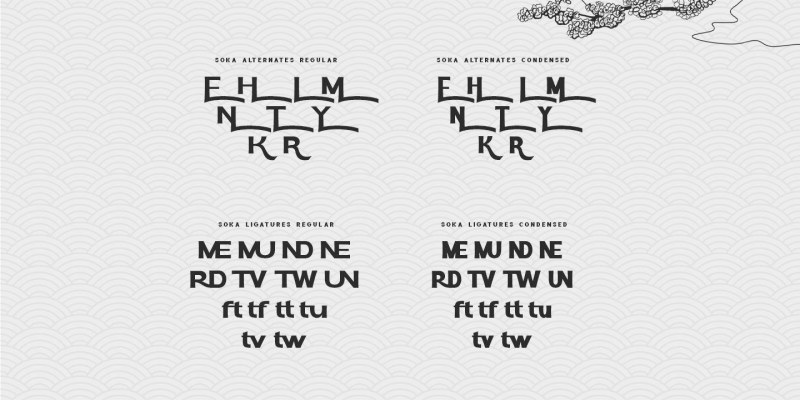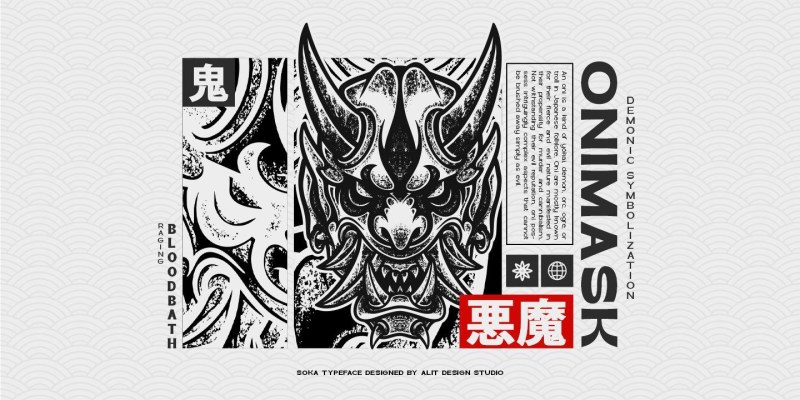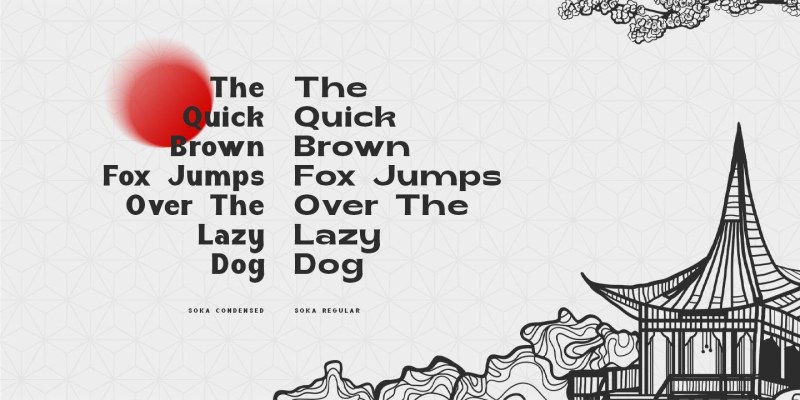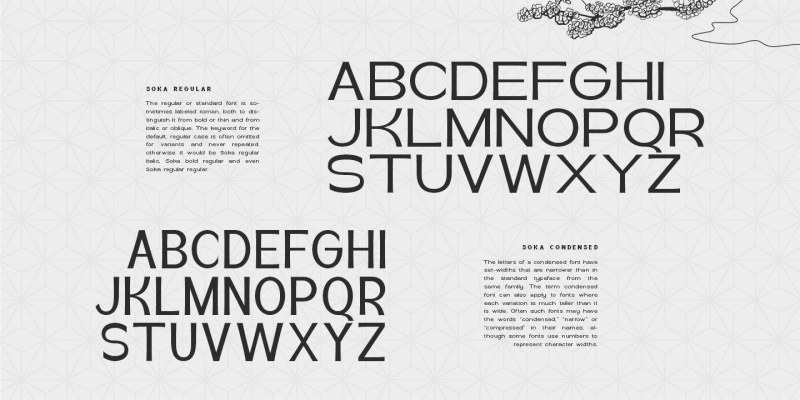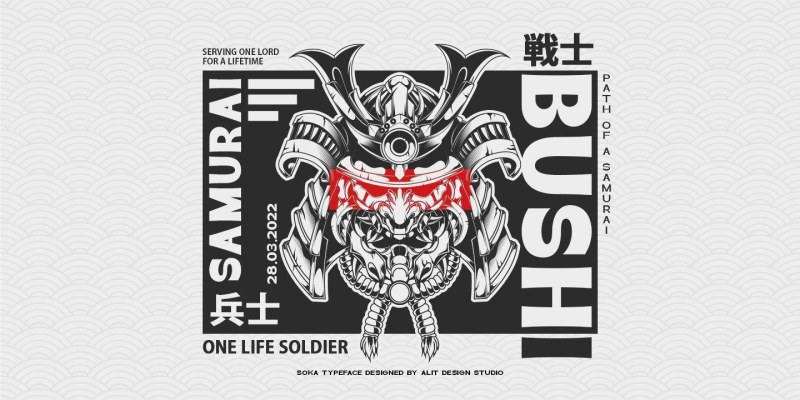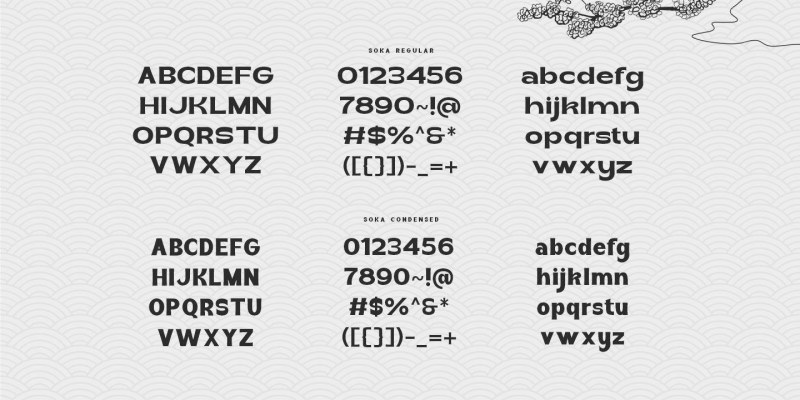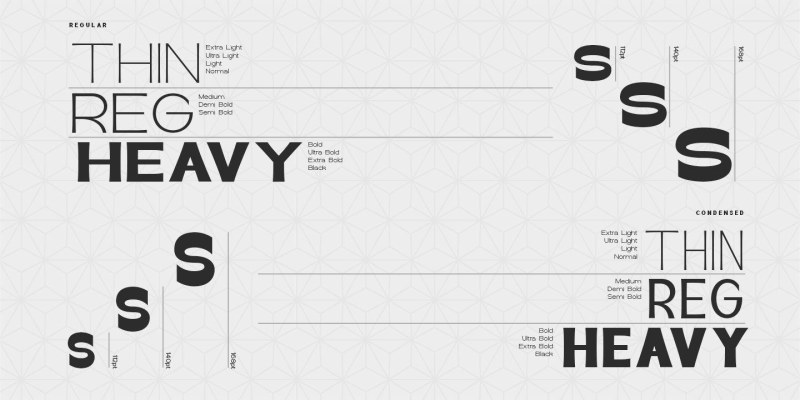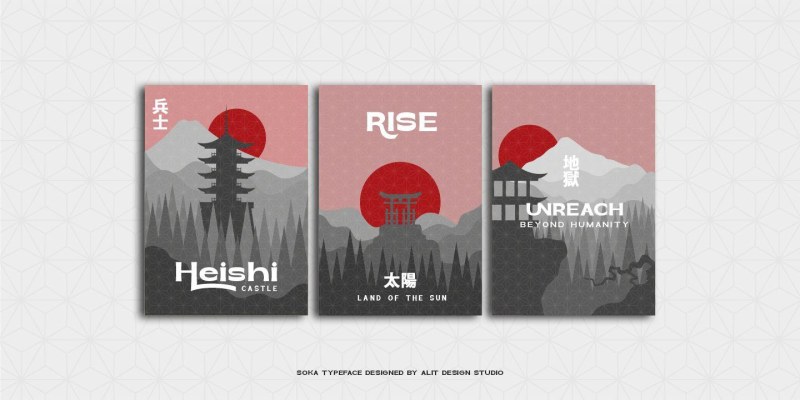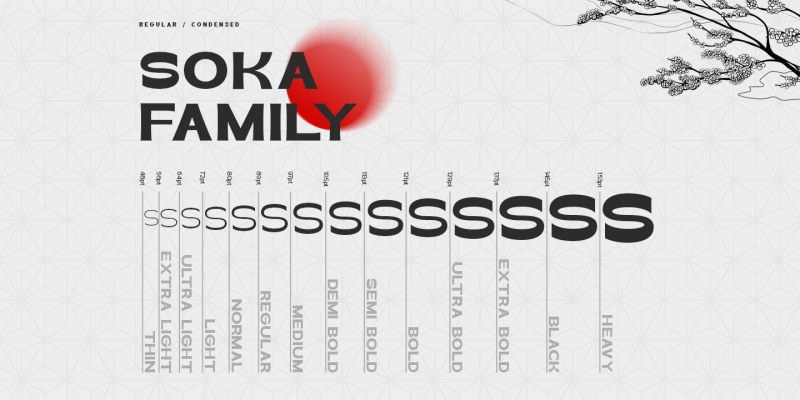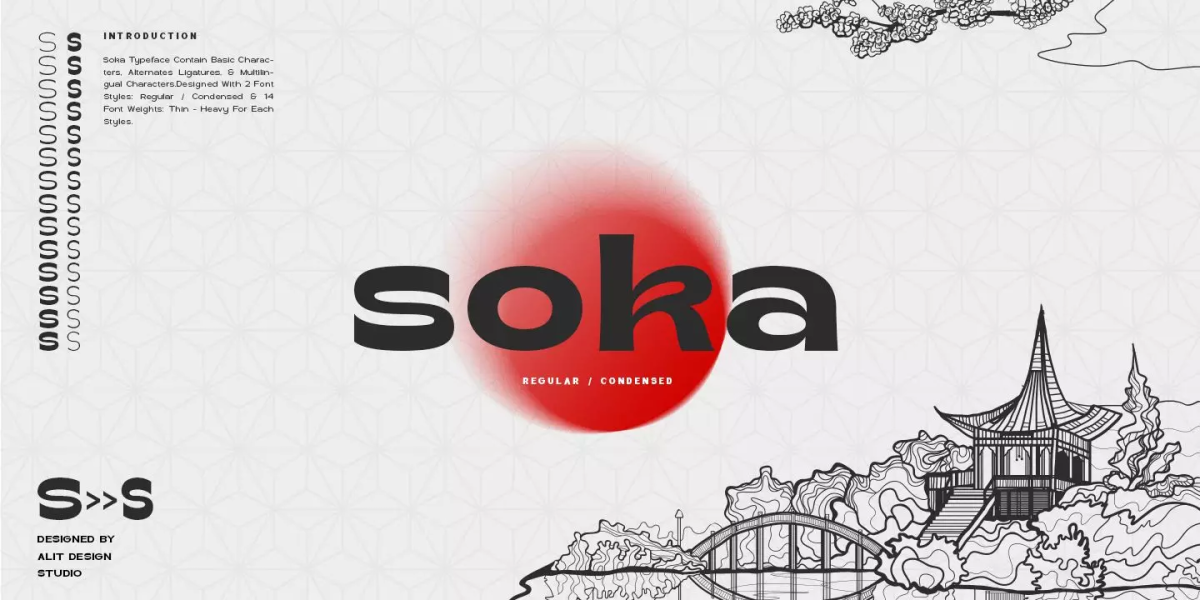
Soka Font
Soka font is inspired by a sans serif font that is retro style but still modern and unique. With a preview with a Japanese concept, the Soka font looks unique among other retro fonts. Sans Serif typefaces such as “Soka typeface” are very easy to apply to any design, especially those with an elegant and smooth concept, besides that this font is very easy to use both in design and non-design programs because everything changes and glyphs are supported by Unicode (PUA).
The Soka typeface contains 522 glyphs with many unique and interesting alternative options. Plus, there’s a cool sans serif font family for header and description text from thin to heavy and thin condensed to heavy condensed. In the poster preview all the letters are in the Soka typeface.
Soka Font is a Sans Serif Fonts font that brings a professional and versatile look to your projects. Soka font is inspired by a sans serif font that is retro style but still modern and unique.